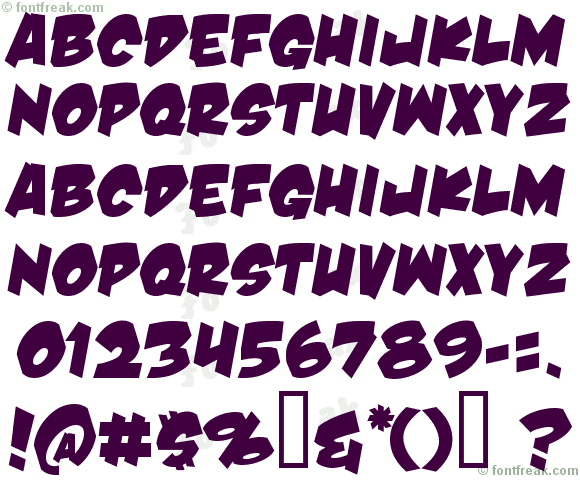
Damn Noisy Kids
About Damn Noisy Kids
Damn Noisy Kids, created by Blambot Fonts in 2002, is a captivating display font that embodies a playful and energetic spirit. This font falls into the decorative category, characterized by its bold, chunky letterforms and slightly irregular shapes, which give it a dynamic appearance. With its thick stroke weight and minimal contrast, Damn Noisy Kids is designed to grab attention, making it ideal for projects that require a fun and youthful aesthetic. The spacing between letters is intentionally loose, enhancing its whimsical feel and making it suitable for various creative applications.
This font shines in multiple use cases, particularly in children's book covers, playful branding, and lively event posters. Its vibrant style makes it a great choice for birthday party invitations and other celebratory materials, where a sense of joy and excitement is paramount. Additionally, Damn Noisy Kids can be effectively used in social media graphics, where eye-catching text can drive engagement. Small business owners and content creators looking to connect with a younger audience will find this font to be a valuable asset in their design toolkit.
Targeting graphic designers and creatives, Damn Noisy Kids offers a unique way to convey a sense of fun and energy in design projects. The font's distinct personality allows it to stand out in a crowded marketplace, making it a memorable choice for those aiming to make an impact. For anyone interested, the Damn Noisy Kids font free download is available, providing an opportunity to incorporate this lively typeface into your work without any cost. Its unique charm and versatility make it a standout option for anyone looking to infuse their designs with a touch of playfulness.